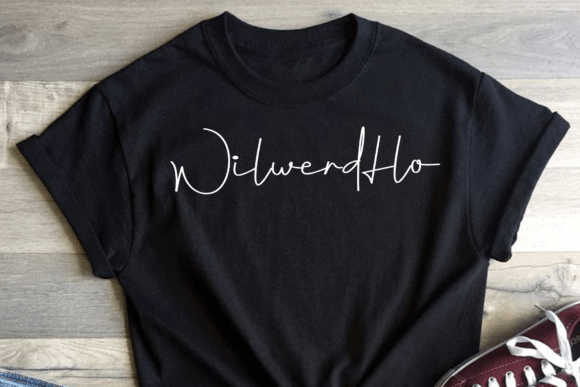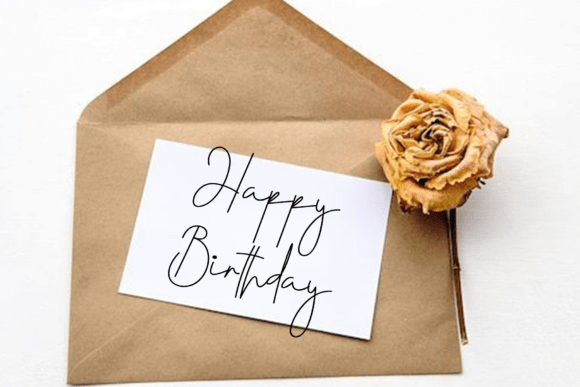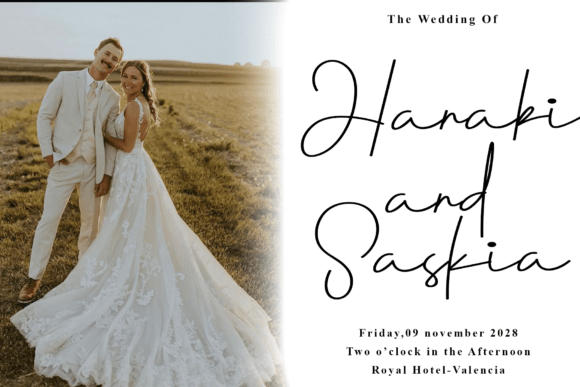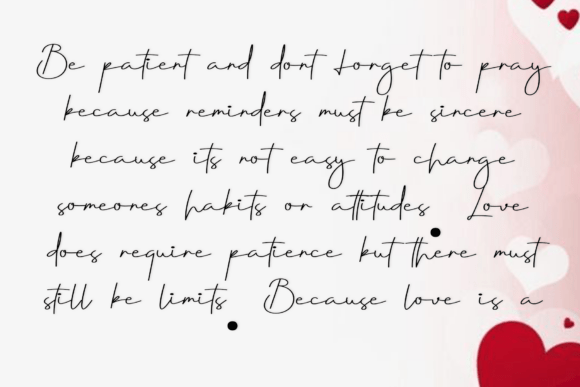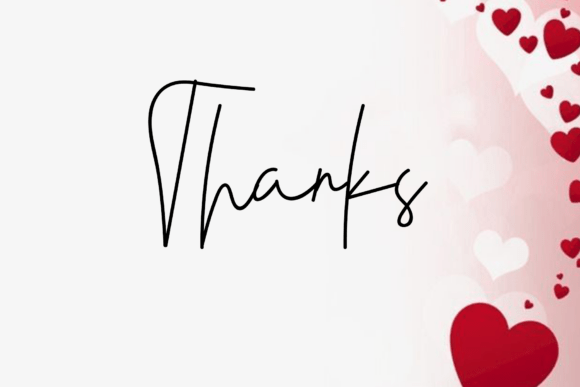
Discover the Elegance of Hearthly Font: A Modern Script for the Minimalist Designer
In the world of typography, the right font can elevate a design from ordinary to extraordinary. For designers and crafters seeking a modern, sophisticated look, the Hearthly font is an excellent choice. This contemporary script typeface is part of the “Modern Handwritten Collection” and is characterized by its thin, elegant lines and a keen sense of space, making it perfect for those who appreciate the art of minimalism.
The Art of Minimalism with Hearthly Font
The Hearthly font embodies the principles of minimalism with its high-reaching stems and delicate curves. This typeface strikes a balance between being professional and avant-garde, making it a versatile choice for various design projects. Whether you’re working on luxury skincare brands, high-concept fashion labels, or modern wedding invitations, the Hearthly font can add a touch of elegance and sophistication.
A Clean and Airy Aesthetic
One of the standout features of the Hearthly font is its clean, airy aesthetic. Unlike traditional cursive fonts that can be dense and heavy, Hearthly offers a lightness that is rarely found in script typefaces. This makes it an excellent choice for designers who want to create stunning headings without overwhelming the white space. The Hearthly font is perfect for minimalist web design and high-end print media, where a sense of luxury and refinement is paramount.
Unique Letterforms as Design Elements
The Hearthly font’s unique letterforms are not just characters; they act as design elements themselves. Each letter is crafted to provide a “professional” yet “unique” flair to business cards, editorial layouts, and luxury social media posts. This distinctive quality allows designers to create visually striking content that stands out in a crowded digital landscape.
Ideal for Luxury and High-End Projects
The Hearthly font is particularly suited for luxury skincare brands, high-concept fashion labels, and modern wedding invitations. Its elegant and sophisticated appearance aligns perfectly with the high-end aesthetic these brands strive to achieve. For skincare brands, the font’s clean and airy feel conveys a sense of purity and effectiveness. For fashion labels, it adds a touch of glamour and sophistication. For wedding invitations, it provides a romantic yet modern look that is sure to impress.
Tips for Using Hearthly Font in Your Designs
To make the most of the Hearthly font, consider the following tips:
- Pair with Neutral Backgrounds: The Hearthly font shines against neutral backgrounds. Pair it with soft whites, creams, or light grays to enhance its elegant appearance.
- Experiment with Spacing: Play around with the spacing between letters and lines to maximize the airy feel of the font. This can help create a sense of luxury and sophistication.
- Use for Headings and Titles: The Hearthly font is perfect for headings and titles. Its unique letterforms make it a great choice for creating visual interest without overpowering the content.
- Combine with Bold Colors: For a striking effect, combine the Hearthly font with bold, contrasting colors. This can help draw attention to key messages or calls to action.
The Hearthly font is a versatile and elegant typeface that is perfect for designers and crafters seeking a modern, sophisticated look. Its thin, elegant lines, high-reaching stems, and delicate curves make it an excellent choice for luxury skincare brands, high-concept fashion labels, and modern wedding invitations. With its clean, airy aesthetic and unique letterforms, the Hearthly font is sure to elevate your designs and add a touch of professionalism and uniqueness. Discover the art of minimalism with the Hearthly font and take your designs to the next level.